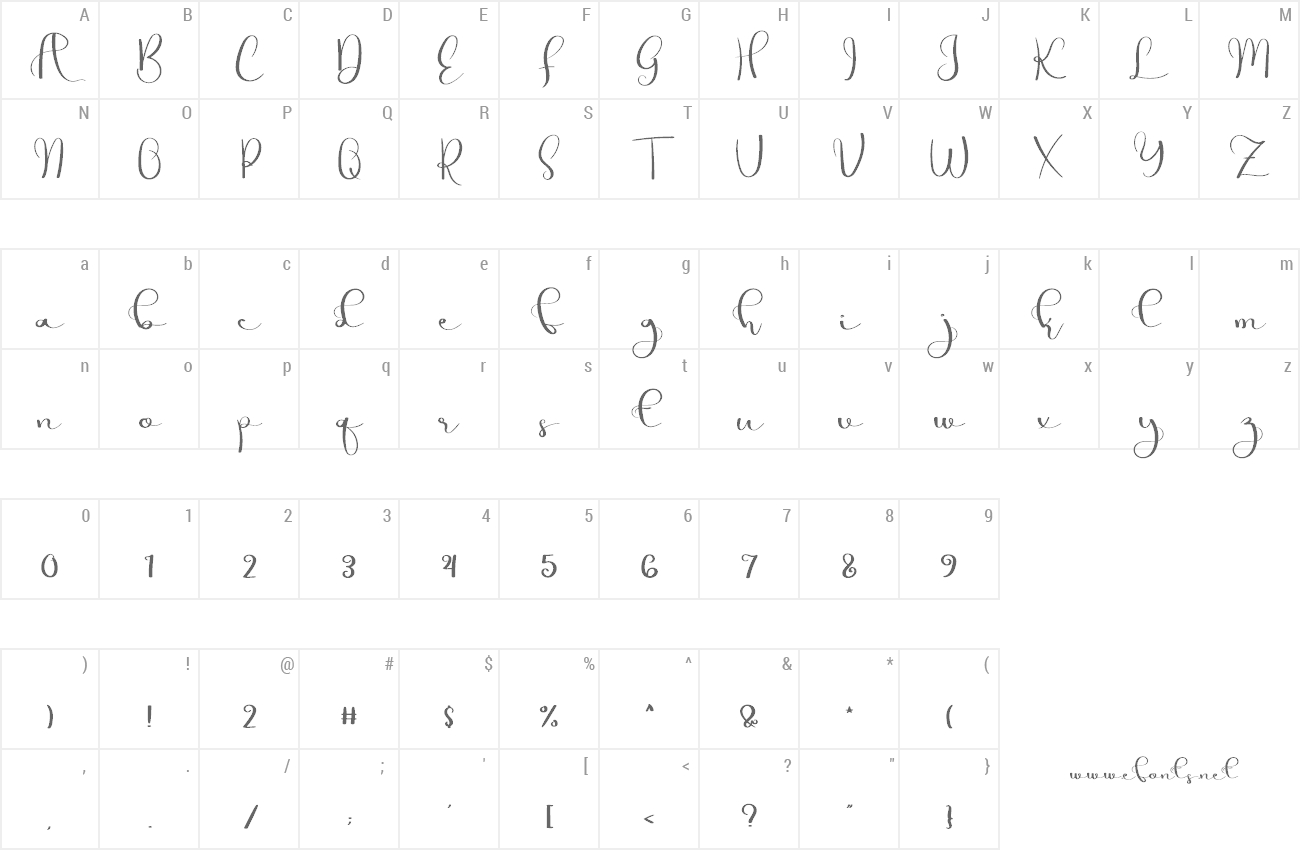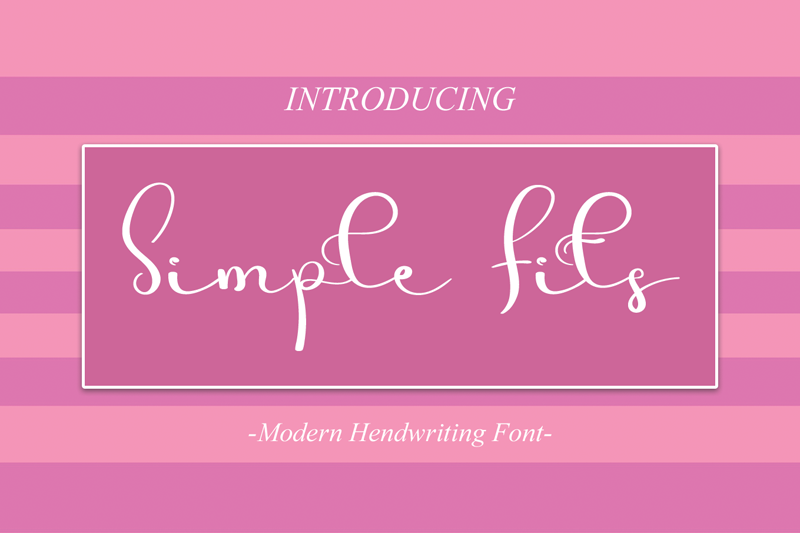
Preview and download Simple Fits Font. Created by Luluk Surotul in Script Handwritten styles with Free for personal use license.
Simple Fits is a thin lettered and graceful script font. Fall for its ravishing style and use it to create gorgeous wedding invitations, beautiful stationary art, eye-catching social media posts, and much more! Attention : Simple Fits handwriting Font is prohibited to use this font for commercial purposes or for profit without the permission of the author/admin, without being known to use this font without permission, will be subject to sanctions 5x the specified price. This font is used only for demos (Demo license) If you want to use this font for commercial use please contact email: elllulukstudio123@gmail.com or click the link below: https://www.creativefabrica.com/product/simple-fits/ref/761303/ If you want to see more other fonts, please click: https://www.creativefabrica.com/designer/el_hotcig Any donations are very appreciated. Paypal account for donation: https://www.paypal.com/paypalme/luluk783 thanks. |